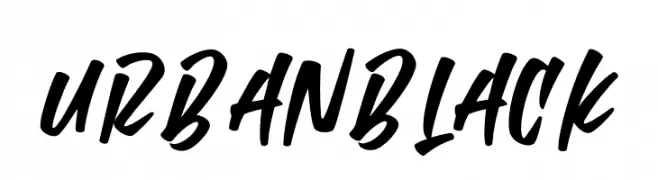
A playful and elegant script font with fluid, connected letterforms.
A bold, decorative font with a striped pattern and condensed form.
A whimsical, hand-drawn font with playful doodles and irregular strokes.
A playful, hand-drawn font with bold, irregular characters.
A bold, dynamic handwritten font with thick strokes and a playful style.
A bold, urban-inspired font with a layered, three-dimensional appearance.
A playful, handwritten font with bold, rounded characters and a casual, urban style.
A bold, dynamic font with a modern, slanted design.
An elegant, high-contrast script font with ornate flourishes and a historical feel.
A flowing, cursive font with elegant, sweeping strokes and a handwritten appearance.